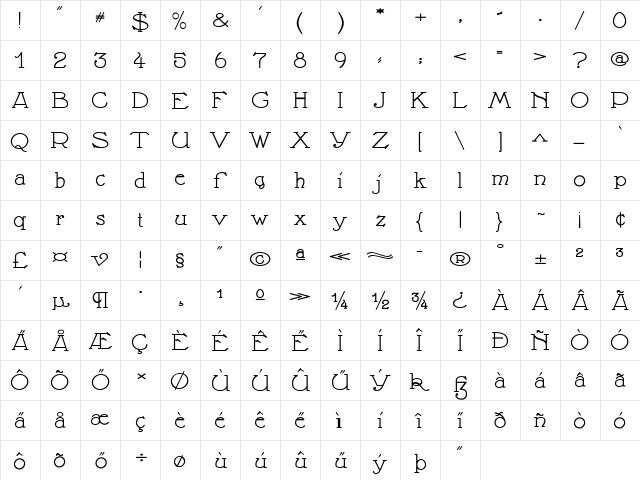
Nathan Expandet Expanded Regular
| Foundry | Peter Wiegel |
| Designer | Peter Wiegel |
Design Context for Nathan Expandet Typeface
Nathan Expandet is a composed and adaptable typeface that performs quietly and consistently across a wide range of design contexts.